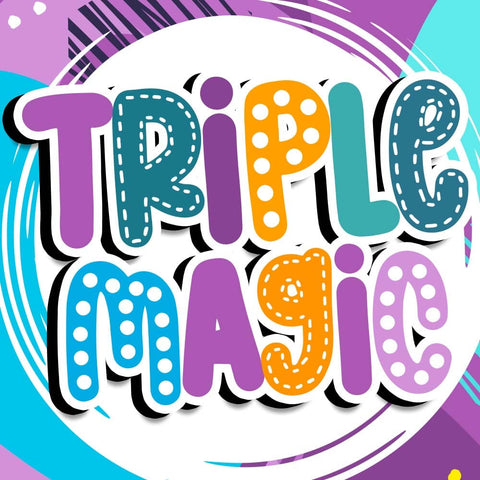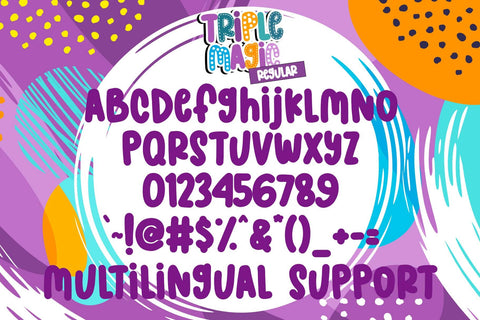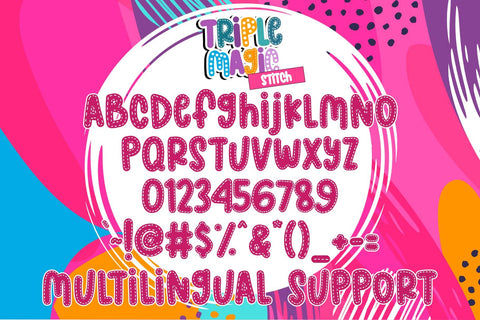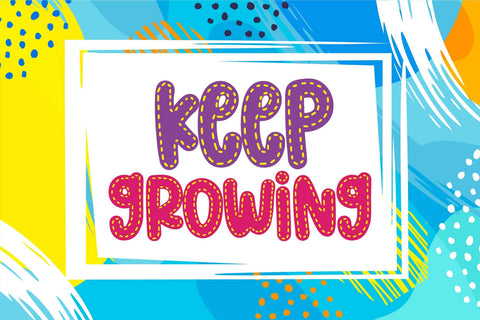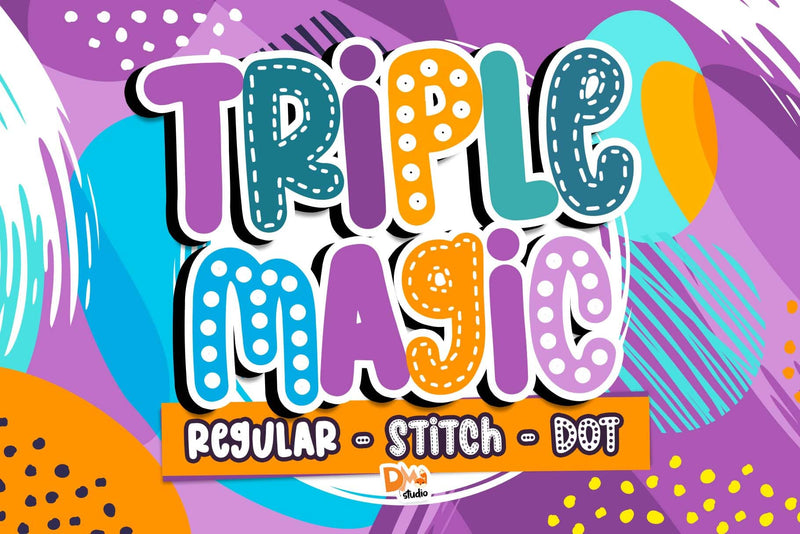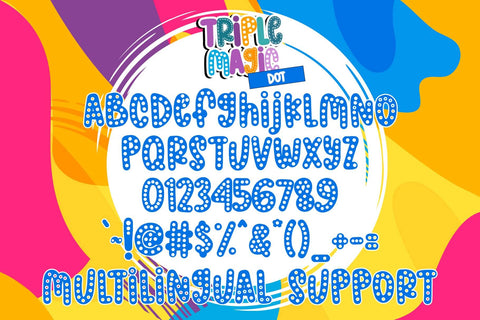
Triple Magic Font
Triple Magic Font with Dot and Stitch is a versatile and enchanting typeface designed to bring a touch of magic to your creative projects. With three distinct styles—standard font, dot, and stitch—this font allows you to add unique and captivating elements to your designs. Ideal for a variety of applications, from digital graphics to crafting projects.
Triple Magic Styles:
- Standard Font: Classic and versatile, perfect for a wide range of design projects.
- Dot Font: Adds a playful and whimsical touch with dotted elements.
- Stitch Font: Provides a charming and handmade aesthetic with stitched detailing.
Usage:
- Graphic Design: Utilize the standard font for graphic design projects such as posters, banners, and social media graphics. Enhance your designs with the playful dot and charming stitch variations.
- Textile and Crafts: The stitch font is perfect for adding a handmade touch to textile designs, embroidery, and crafting projects.
- Digital Creations: Enhance your digital creations with the dot font for a unique and modern aesthetic.